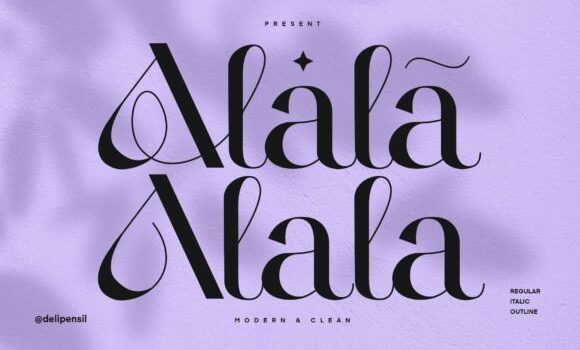
Alala Font – Free Download Introduction to Alala Font Alala is a sophisticated, charming serif font with a fashionable touch. 📸 Preview Gallery 6 images 📌 Product Name Alala Font 👤 Author delipensil 📂 Category Explore ⬇️ Download Alala Font